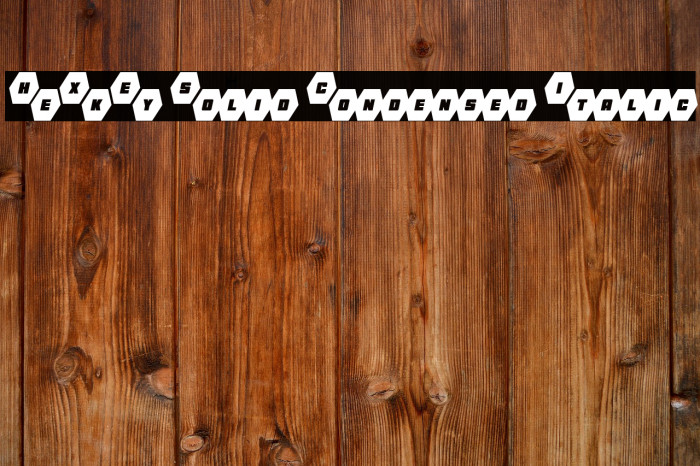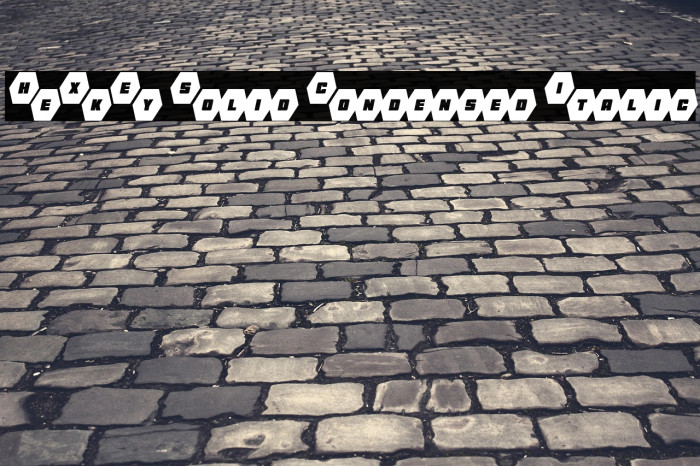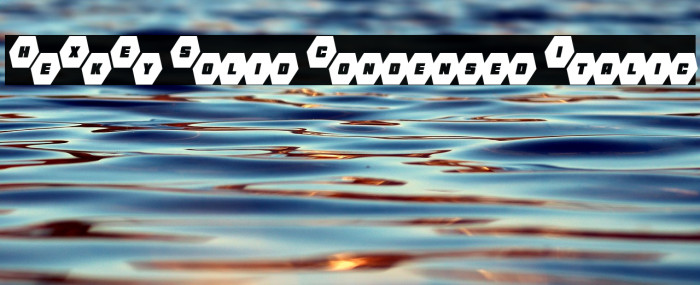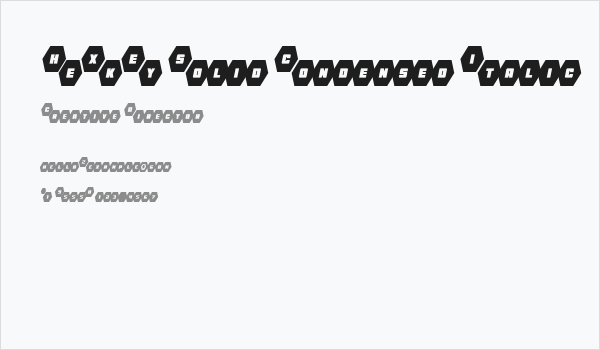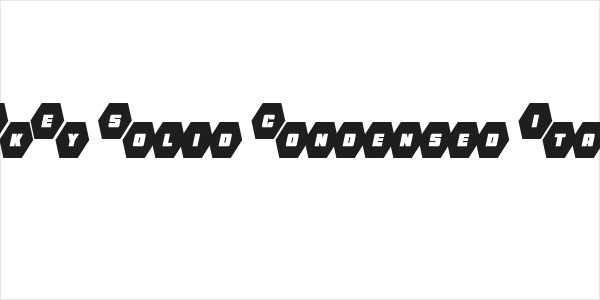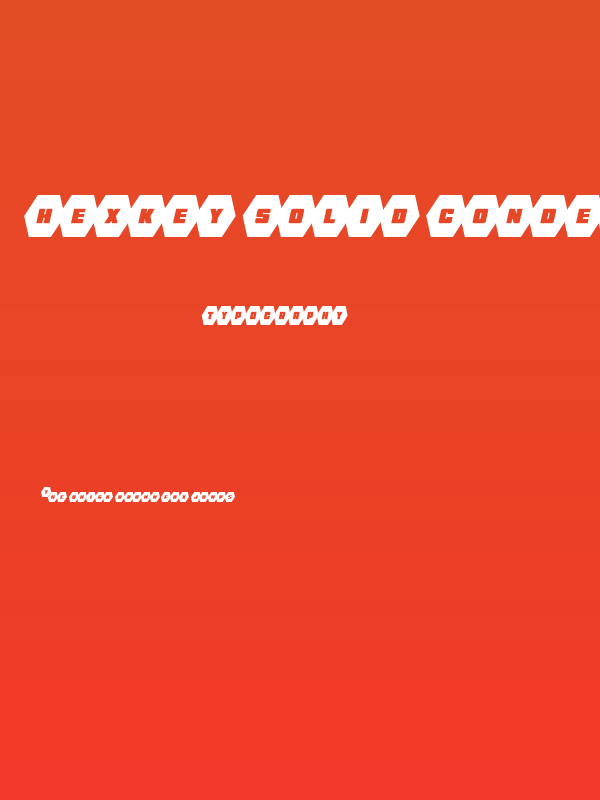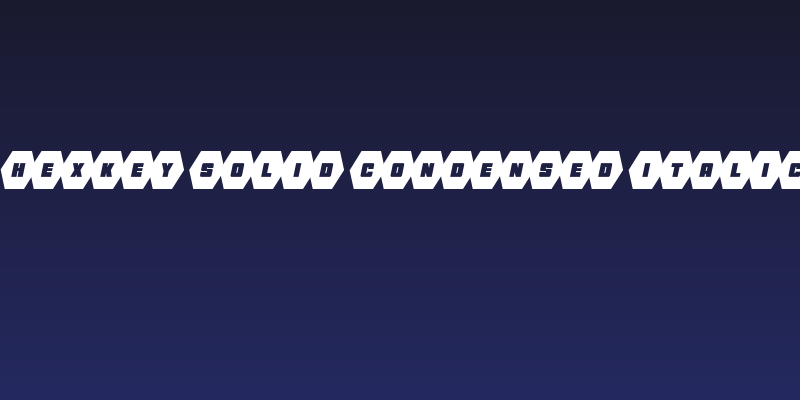
HeXkEy Solid Condensed Italic Font
HeXkEy Solid Condensed Italic Description
This font features a bold, geometric design with each character encased in a hexagonal shape. The letters and numbers are solid and condensed, giving a strong and impactful appearance. The italic style adds a dynamic slant to the characters, enhancing the sense of movement and modernity. The font is highly stylized, making it suitable for attention-grabbing headlines or logos. The consistent hexagonal theme across all characters provides a unique and cohesive look, while the boldness ensures visibility and emphasis.